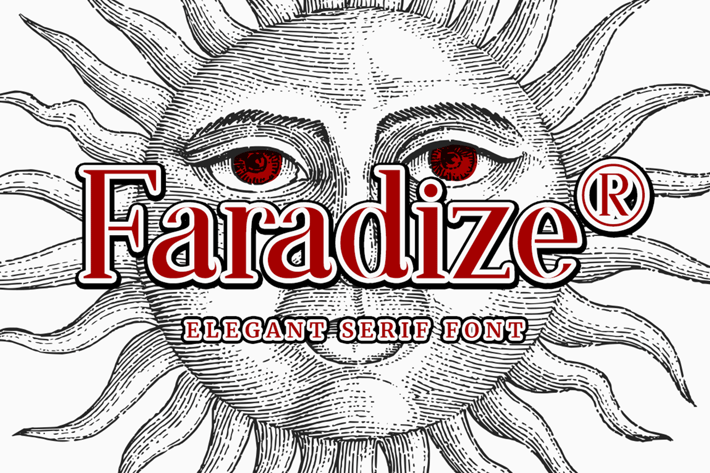
Faradize - Elegant Serif Font
Faradize is an elegant and distinct serif font. Suitable for a wide variety of designs due to its neat and simple style, this font has the potential to become your favorite go-to font, no matter the occasion!